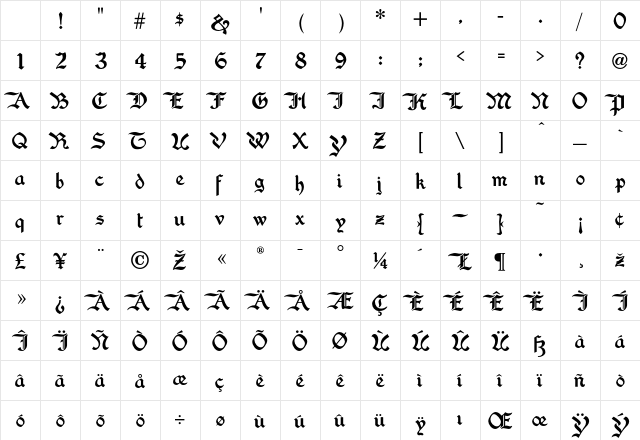
Complete WashingtonText Regular glyph index. Displaying only characters natively supported by WashingtonText Regular font.
WashingtonText is a composed and adaptable typeface that performs quietly and consistently across a wide range of design contexts.